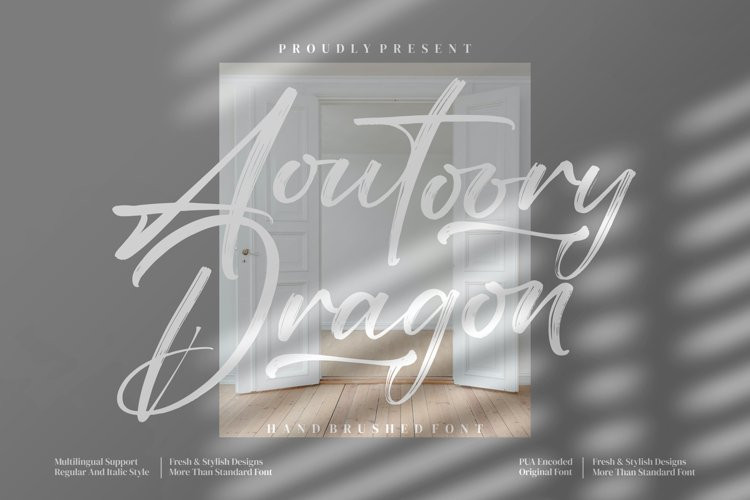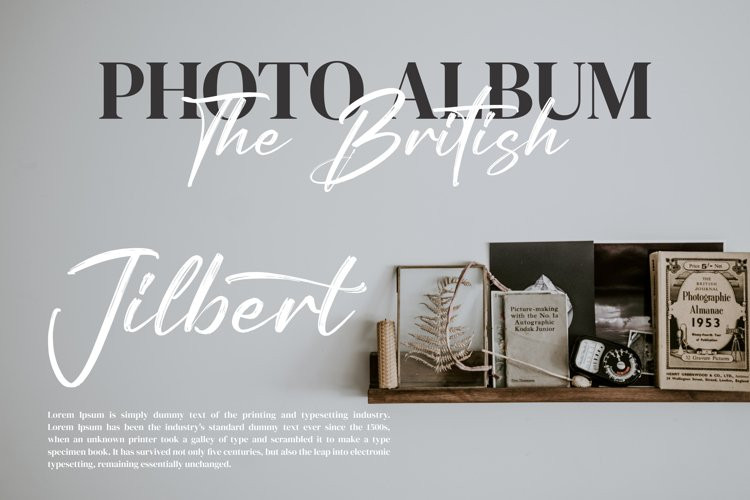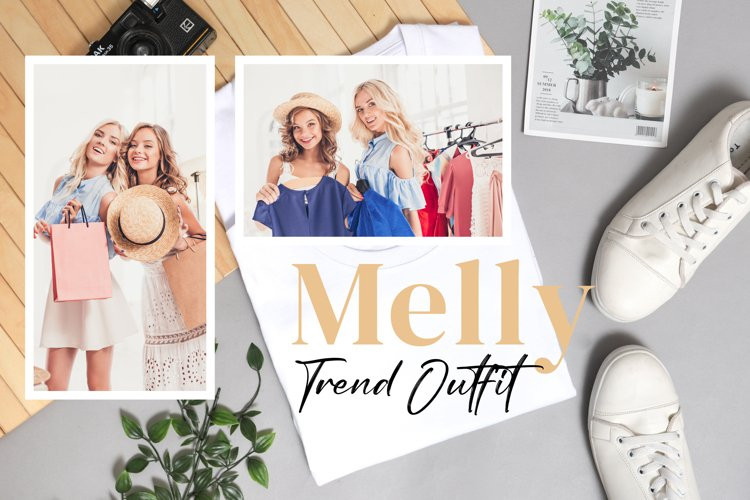
Aoutoory Dragon Font
Aoutoory Dragon FontAoutoory Dragon – Brush Font , from Integritype Studio, is a premium Brush Font, suitable for any projects such as: logos, branding projects, homeware designs, product packaging, mugs, quotes, posters, shopping bags, t-shirts, book covers, name card, invitation cards, greeting cards, label, photography, watermark, special events, and all your other luxury projects that need a premium signature taste.